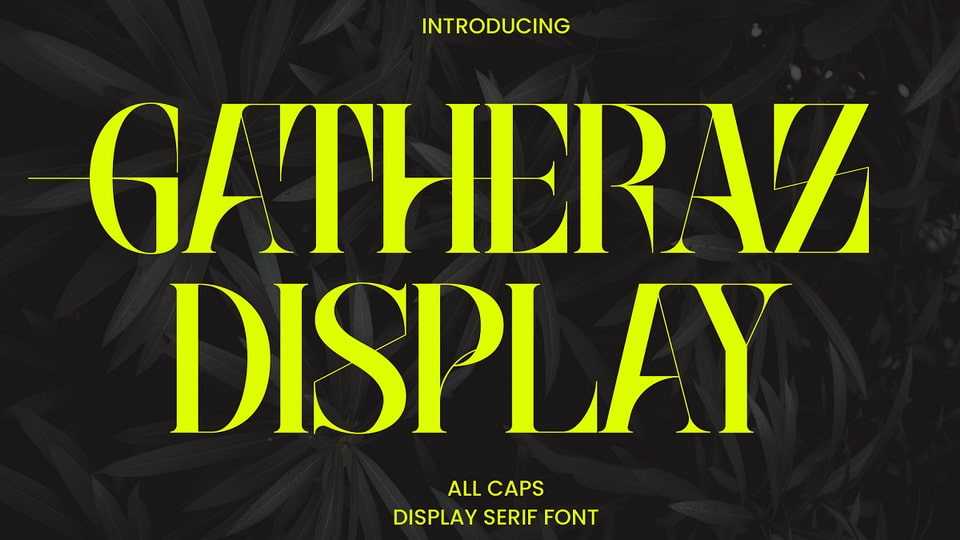
Gatheraz Display Font › Fontesk – Download Grátis
Download Gatheraz font, a stylish display serif typeface. Its elegant and cool look makes it the perfect choice for logos, branding, invitations, stationery, wedding designs, social media posts, and so much more.
Designer: Rvandtype Studio